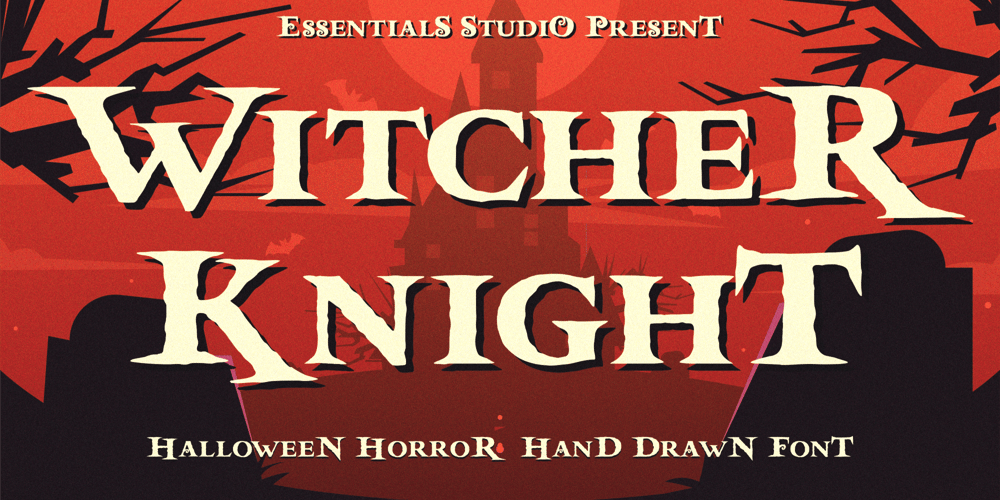
Witcher Knight Font Family was designed by Bagus Panji Asmoro and published by Essentials Studio. Witcher Knight contains 1 styles and family package options. Witcher knight Is a Modern Script FontWitcher knight is perfect for product packaging, branding project, megazine, social media, wedding, or just used to express words above the background.